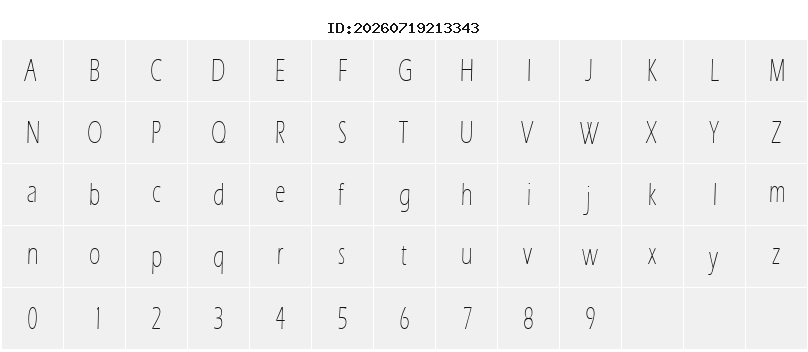
• Font Name: Eric Lite Thin
• Full Font Name: Eric Lite Thin Normal
About Eric Lite Thin.ttf
Eric Lite Thin.ttf is a modern, elegant sans-serif font designed for ultimate readability and visual harmony. Perfect for branding, headlines, web design, and print materials.